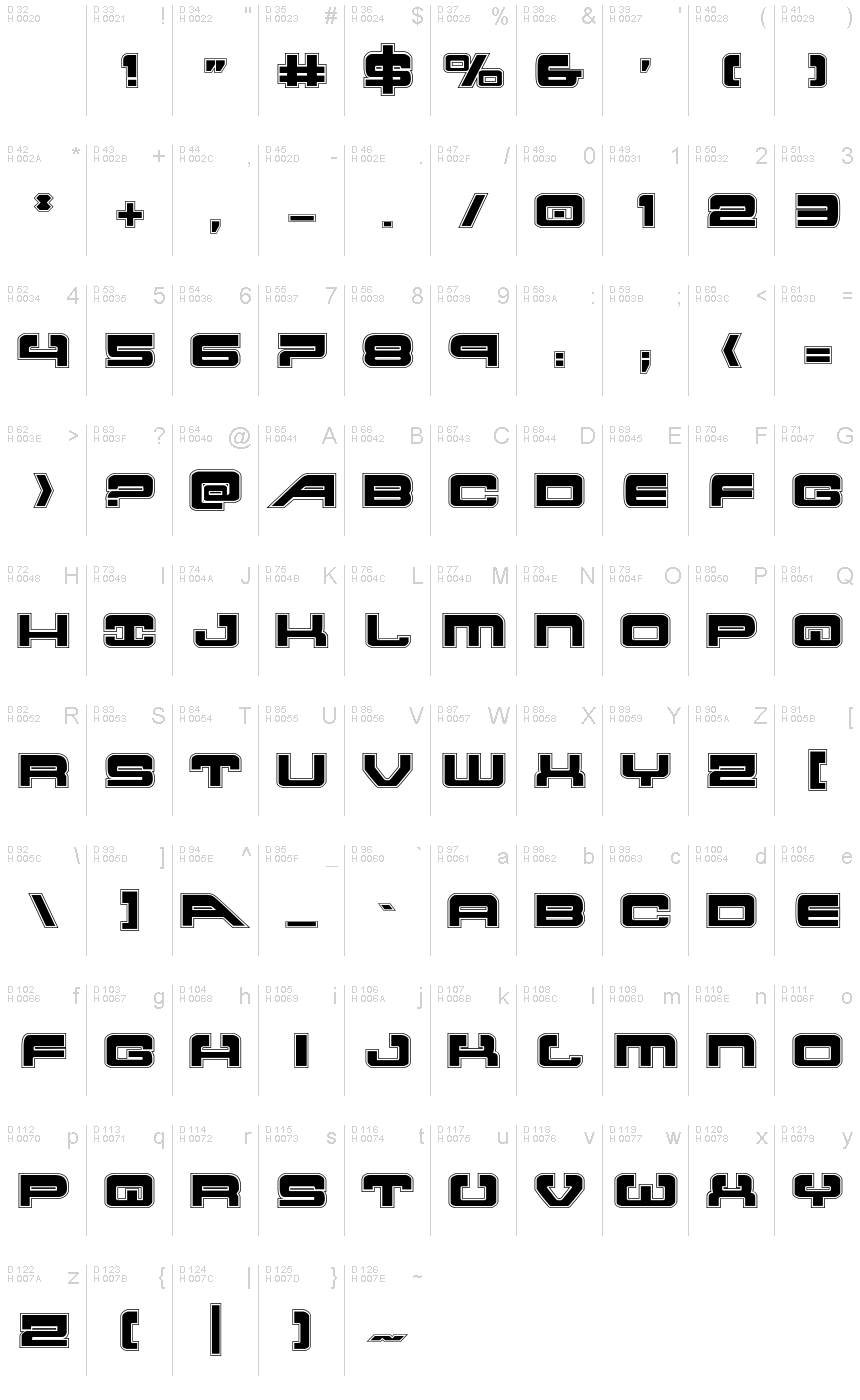
Atlantia Academy
Atlantia Academy captivates with its bold, futuristic flair. The design exudes confidence through its robust characters, each infused with a sense of motion and innovation. With a strikingly expanded form, this font commands attention, making it ideal for titles and headers that seek to make an impact.
Its unique aesthetic lends itself effortlessly to various contexts—from tech-forward branding to sci-fi themed graphics. Whether used in promotional materials or digital interfaces, Atlantia Academy enhances visual storytelling with its dynamic presence, ensuring messages resonate powerfully with audiences. This display typeface is not just a font; it's an invitation into a visually striking world of creativity and modernity.